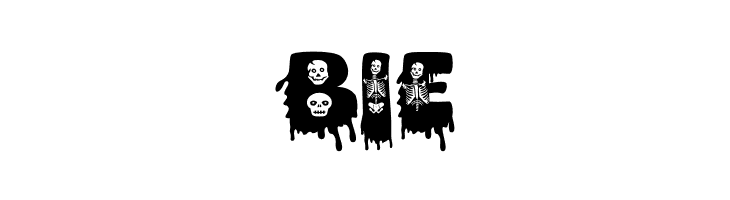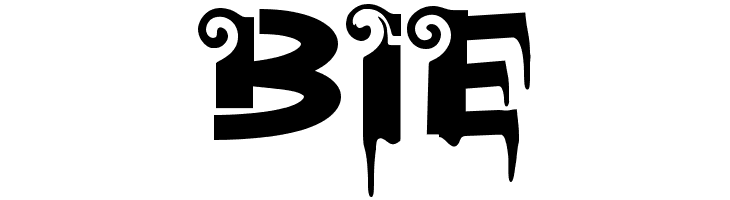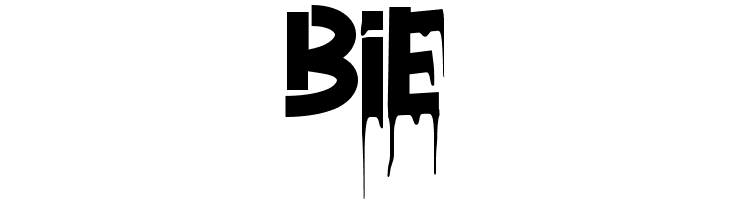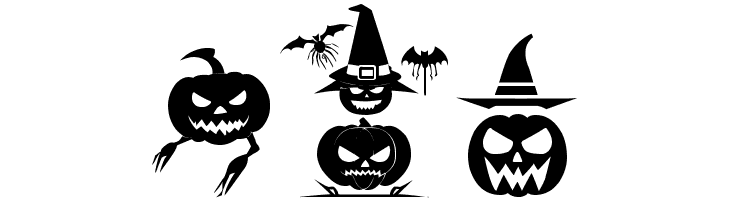
A spooky, Halloween-themed decorative font with dripping effects and playful elements.
A spooky, whimsical font ideal for Halloween themes.
A playful, spooky font with a dripping effect, perfect for Halloween themes.
A playful, spooky font with curled accents and dripping effects, perfect for Halloween themes.
A spooky, decorative font with jagged edges and a dripping effect, perfect for Halloween themes.
A decorative font with Halloween-themed icons like pumpkins and witches.
A bold, jagged font with a spooky, playful Halloween theme.
A spooky, decorative font with vine-like embellishments, perfect for Halloween themes.
A spooky, dripping font perfect for Halloween themes.
A playful, spooky font with decorative Halloween-themed elements.